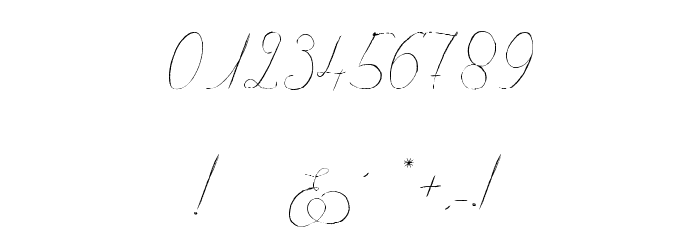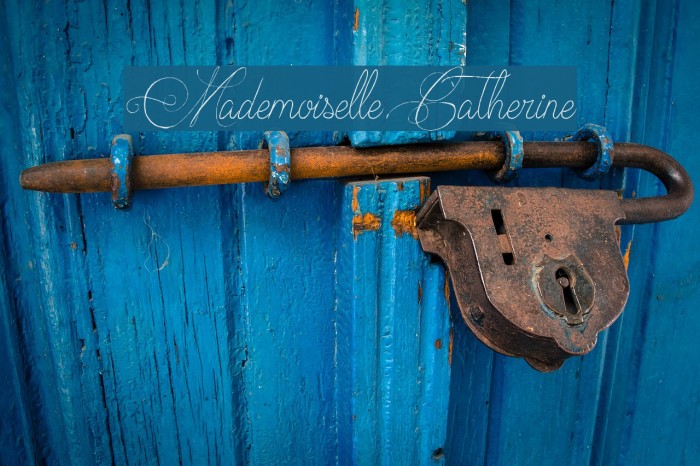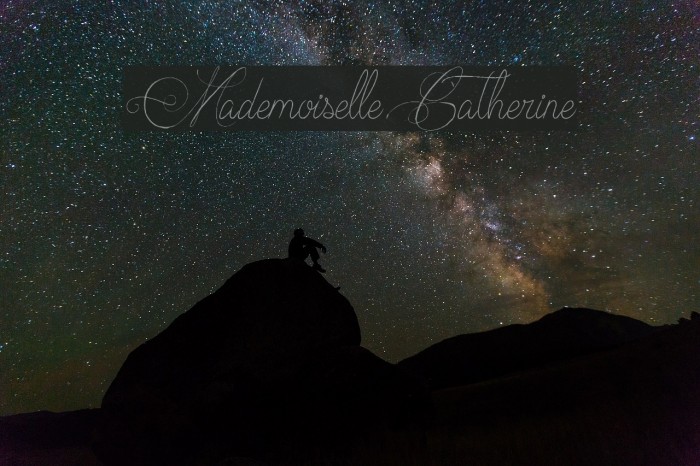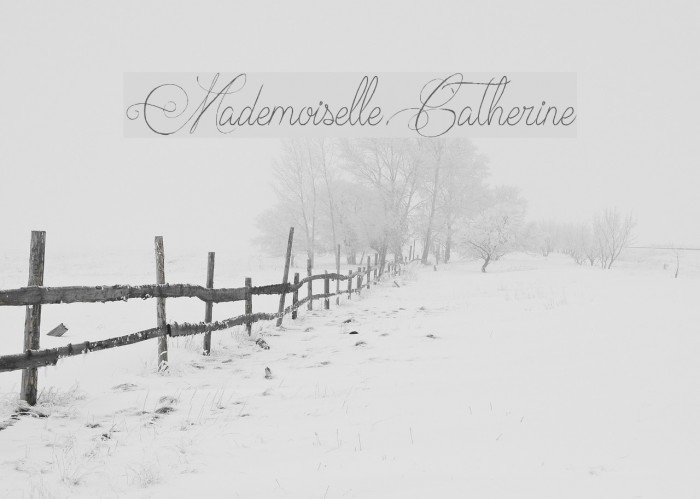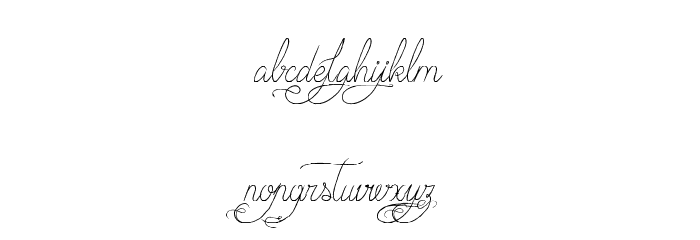
Mademoiselle Catherine Font
This elegant script font features intricate, flowing lines and delicate curves, reminiscent of classic calligraphy. Each character is adorned with ornate flourishes, giving the font a sophisticated and decorative appearance. The uppercase letters are particularly elaborate, with sweeping ascenders and descenders that create a sense of movement and grace. The lowercase letters maintain a consistent style, complementing the uppercase with their own subtle embellishments. Numbers and special characters are designed with the same attention to detail, ensuring a cohesive look across all elements. This font exudes a sense of luxury and refinement, making it ideal for formal and artistic applications.
An elegant script font with intricate, flowing lines and ornate flourishes.
• Proposed Projects: Ideal for wedding invitations, luxury branding, elegant stationery, and artistic projects.
• Category: Script
• Contrast: High
• Overall Style: Decorative
• Use Case: Logos, Invitations, Artistic projects